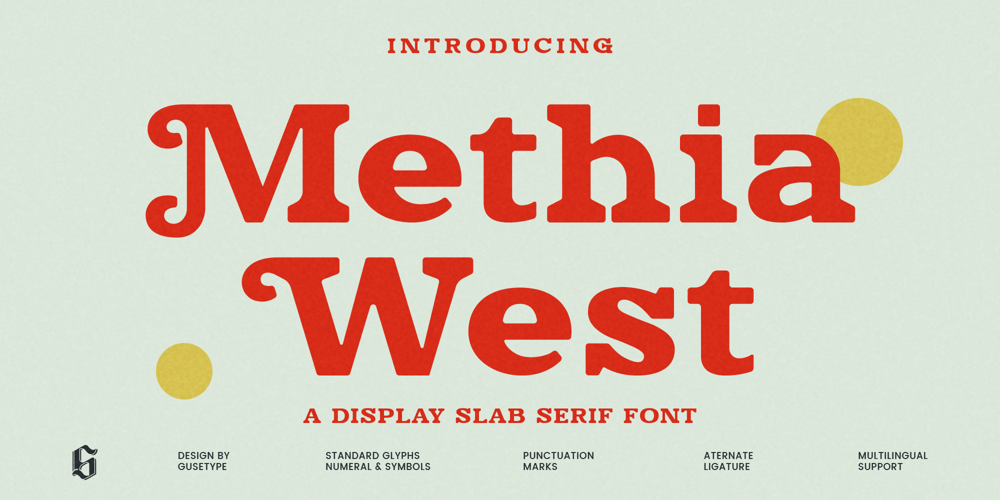
Methia West Font Family was designed by Guntur Septyan and published by GuseType. Methia West contains 1 styles and family package options. Methia West a display slab serif font that inspired by rounded edge shape to make it look smooth and playful, Methia West also suitable for all type of design especially retro and vintage. This font can be used for your project like a posters headlines, magazines, logos, brochure, album cover design, banners, business card, t shirt, invitations and many more. Methia West has several features including standard glyphs, multiple languages support, punctuation marks, symbols, alternative and ligature.